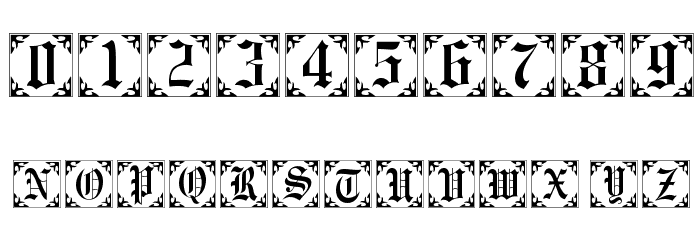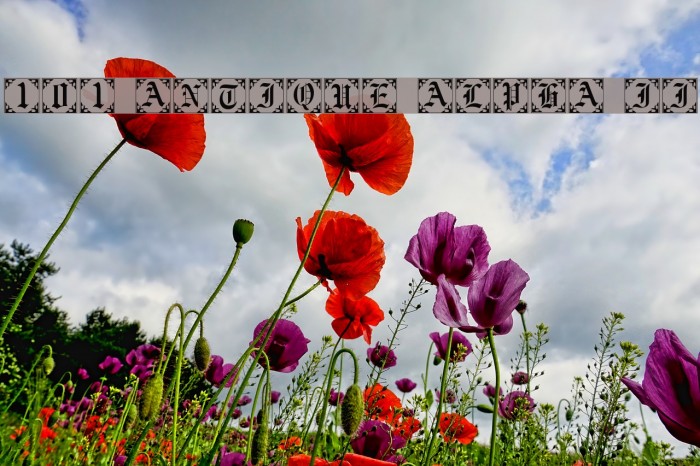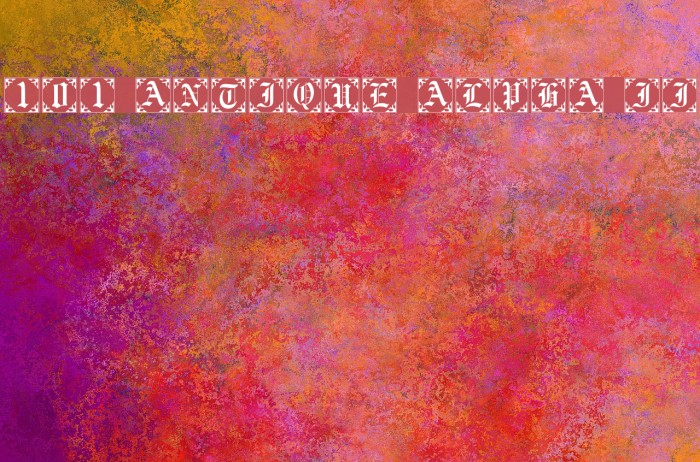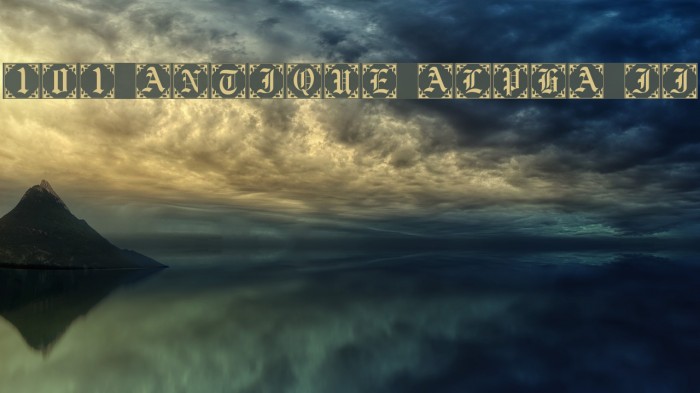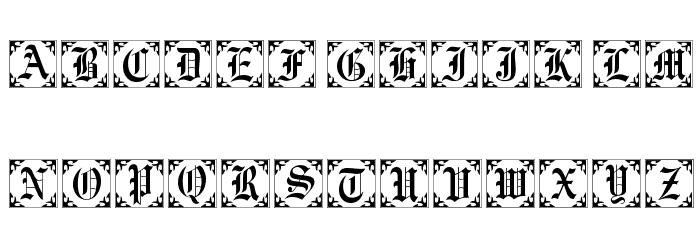
101! Antique Alpha II Font
This font features a highly decorative and ornate style, reminiscent of traditional blackletter scripts. Each character is enclosed within a square frame adorned with intricate floral motifs, adding a historical and antique feel. The letters themselves are bold and angular, with sharp serifs and a high contrast between thick and thin strokes. This design evokes a sense of elegance and formality, suitable for projects that require a touch of classic sophistication. The overall appearance is both striking and memorable, making it ideal for special occasions or themed designs.
An ornate, blackletter-style font with decorative floral frames.
• Proposed Projects: Ideal for wedding invitations, historical documents, certificates, or branding that requires a vintage or gothic aesthetic.
• Category: Blackletter
• Bold: Yes
• Italic: No
• Weight: Bold
• Width: Normal
• Character Spacing: Normal
• Contrast: High
• Overall Style: Vintage
• Use Case: Logos, Headlines, Decorative text